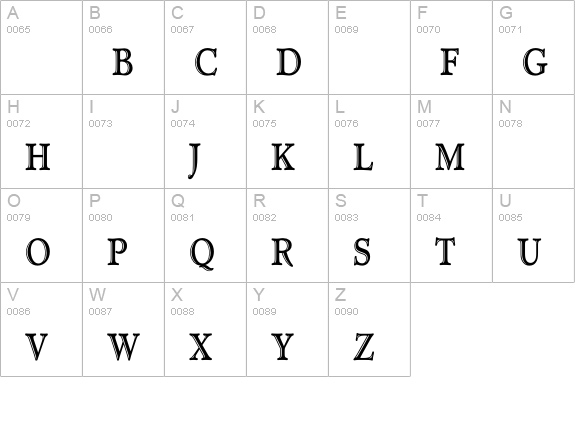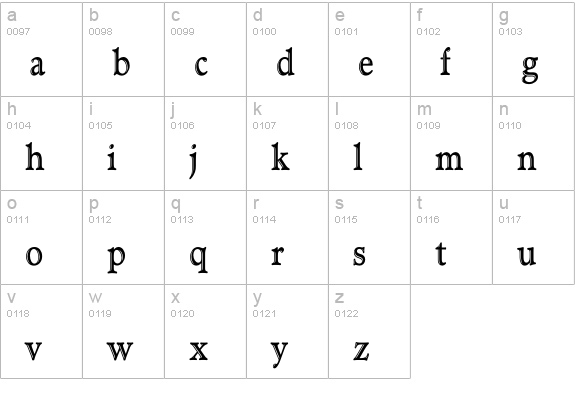
TCAdministerHandtooledCond Font Details
Introducing TCAdministerHandtooledCond, a truly remarkable font that exudes elegance and sophistication. Crafted with meticulous attention to detail, this font showcases a unique blend of handcrafted charm and modern design elements. TCAdministerHandtooledCond is the perfect choice for designers and creatives who aim to make a bold statement. Its condensed form adds a touch of sleekness, making it suitable for a wide range of projects, from logos and branding to headlines and titles. What sets TCAdministerHandtooledCond apart is not just its stunning aesthetics, but also the fact that it is freely available to download at FontsMarket.com. Yes, you heard that right! This font can be yours without any cost, allowing you to unleash your creativity without breaking the bank. With TCAdministerHandtooledCond, you can effortlessly elevate your designs to a whole new level. Its clean lines, delicate curves, and impeccable spacing create a harmonious visual experience that captivates the eye. Whether you're designing for print or digital media, this font guarantees a polished and professional result. So why wait? Embrace the power of TCAdministerHandtooledCond and unlock a world of design possibilities. Download it for free at FontsMarket.com today and let your creativity soar to new heights.